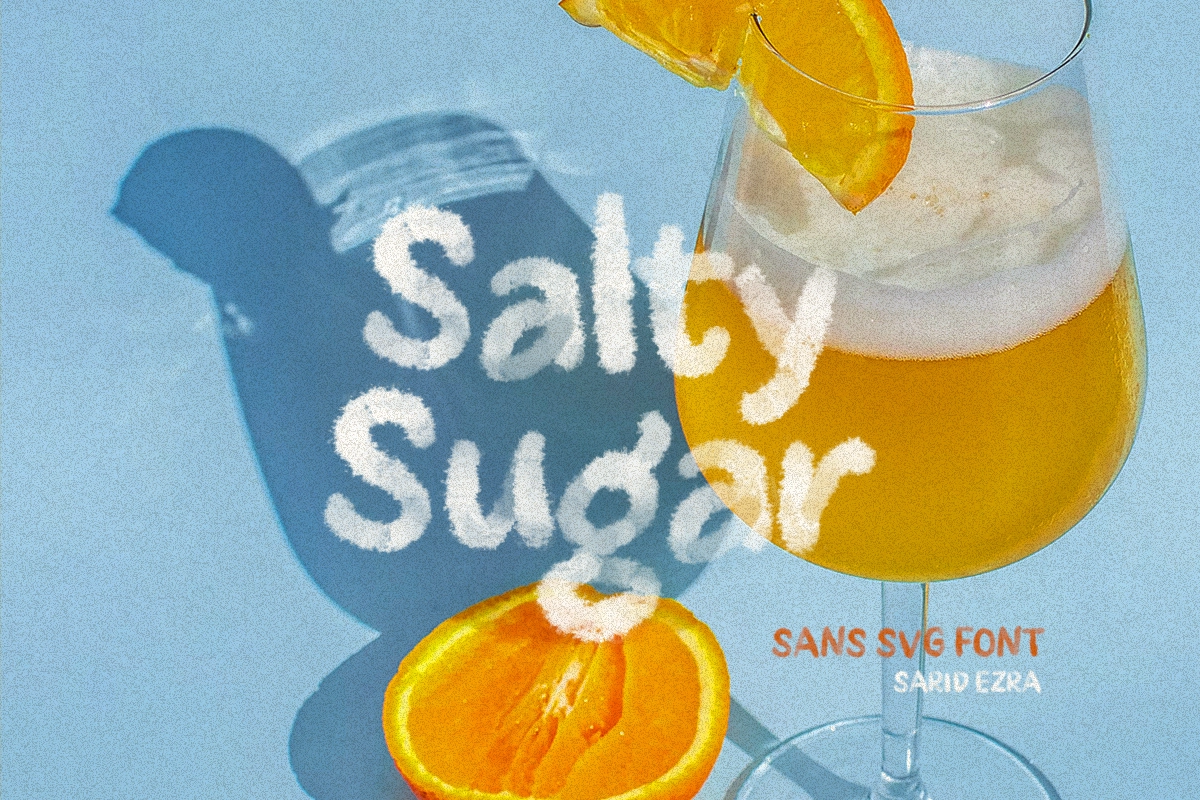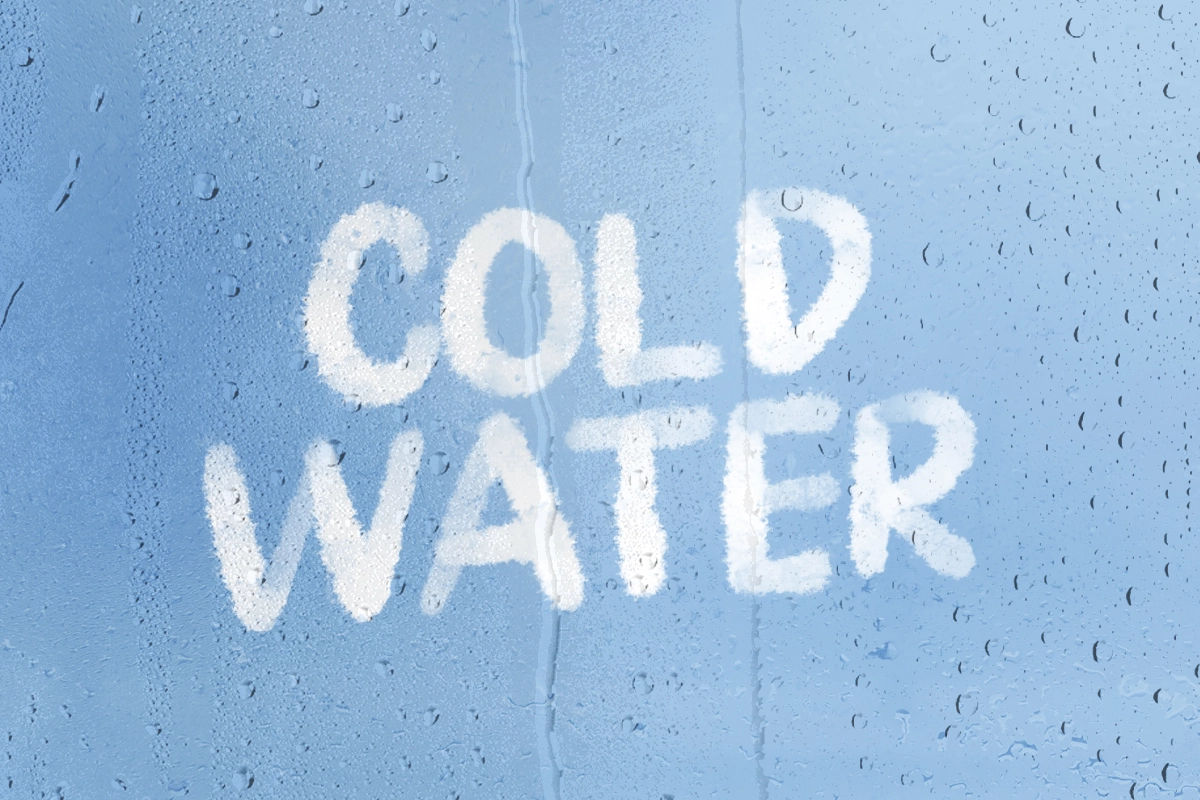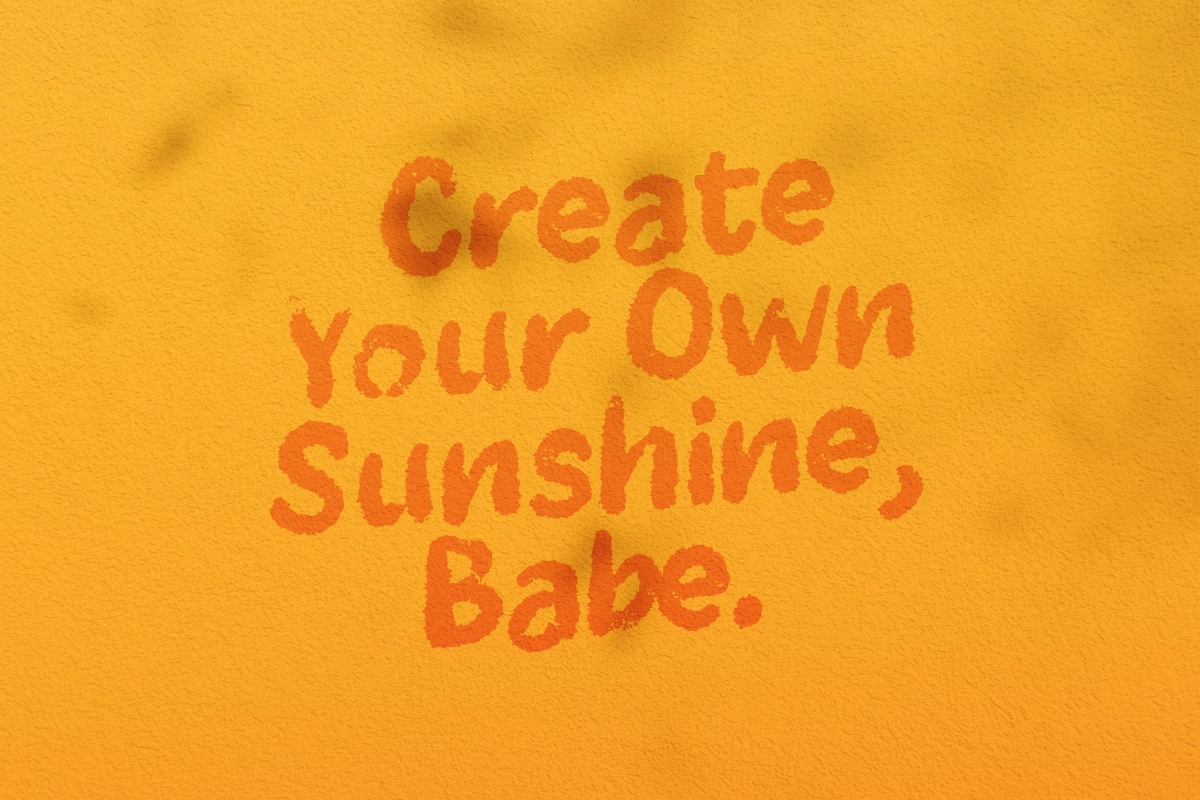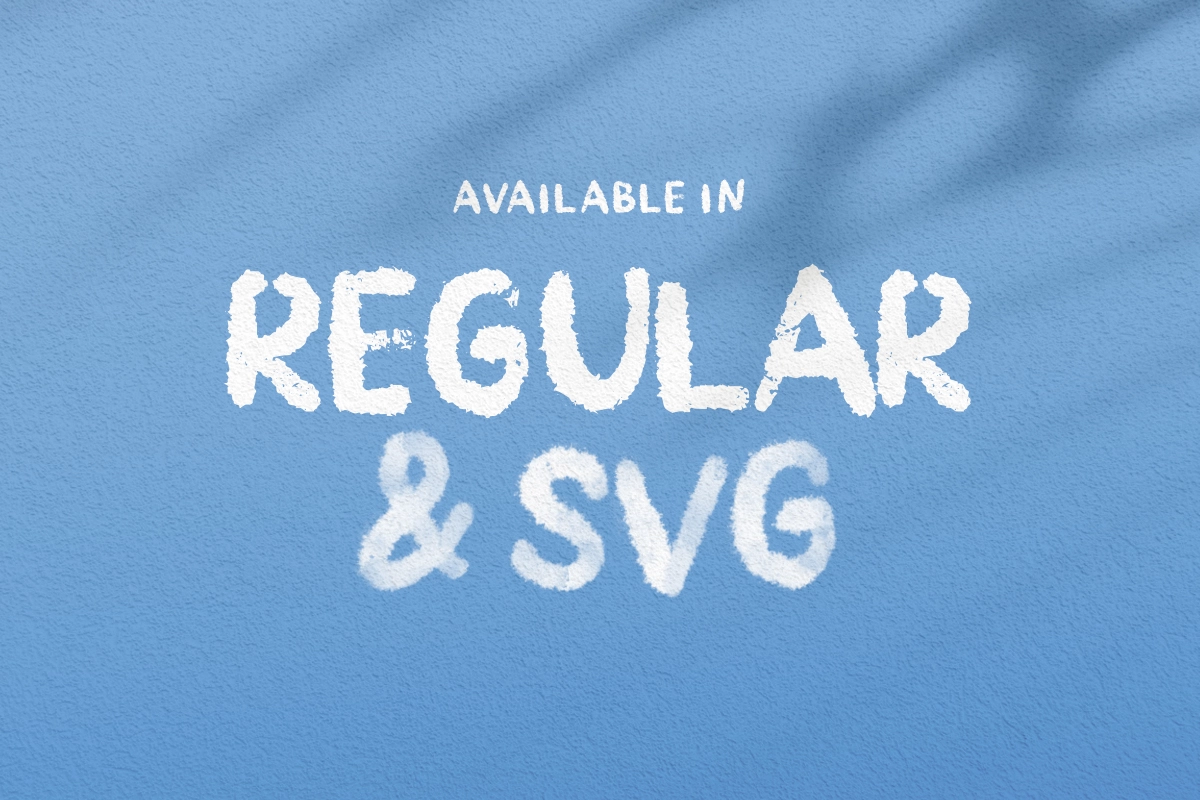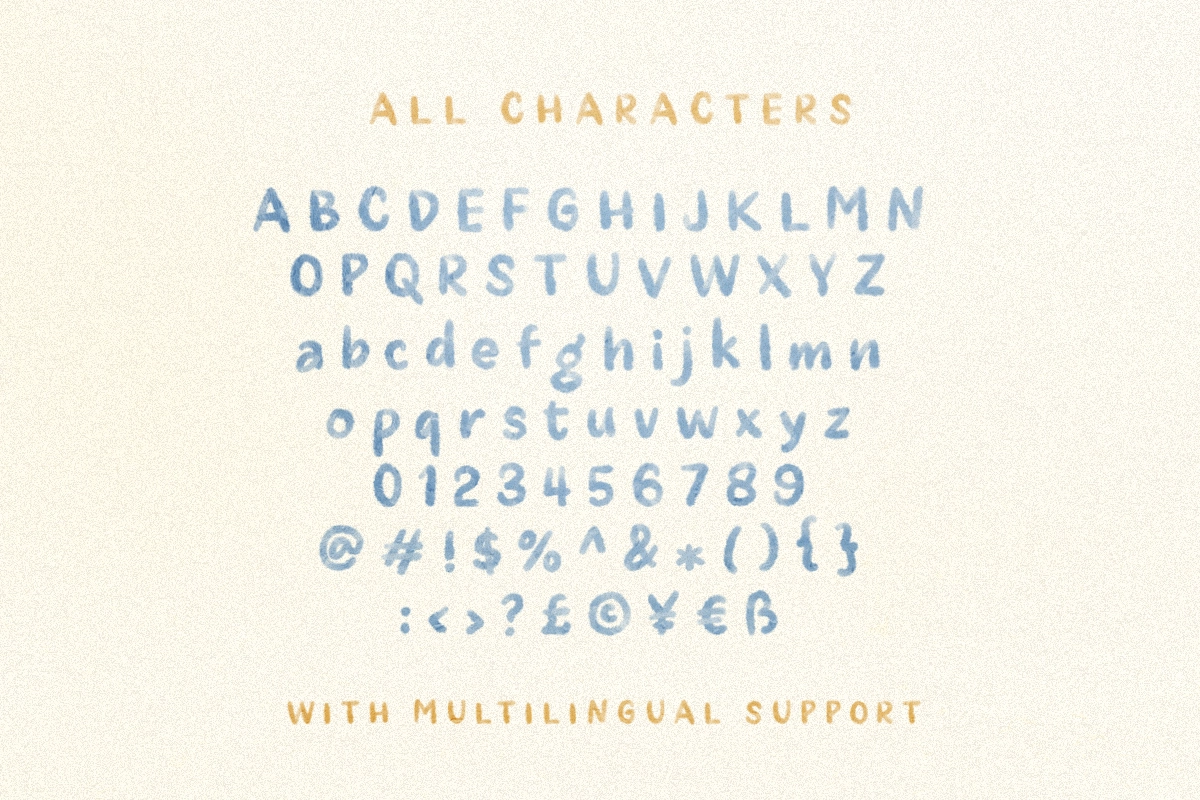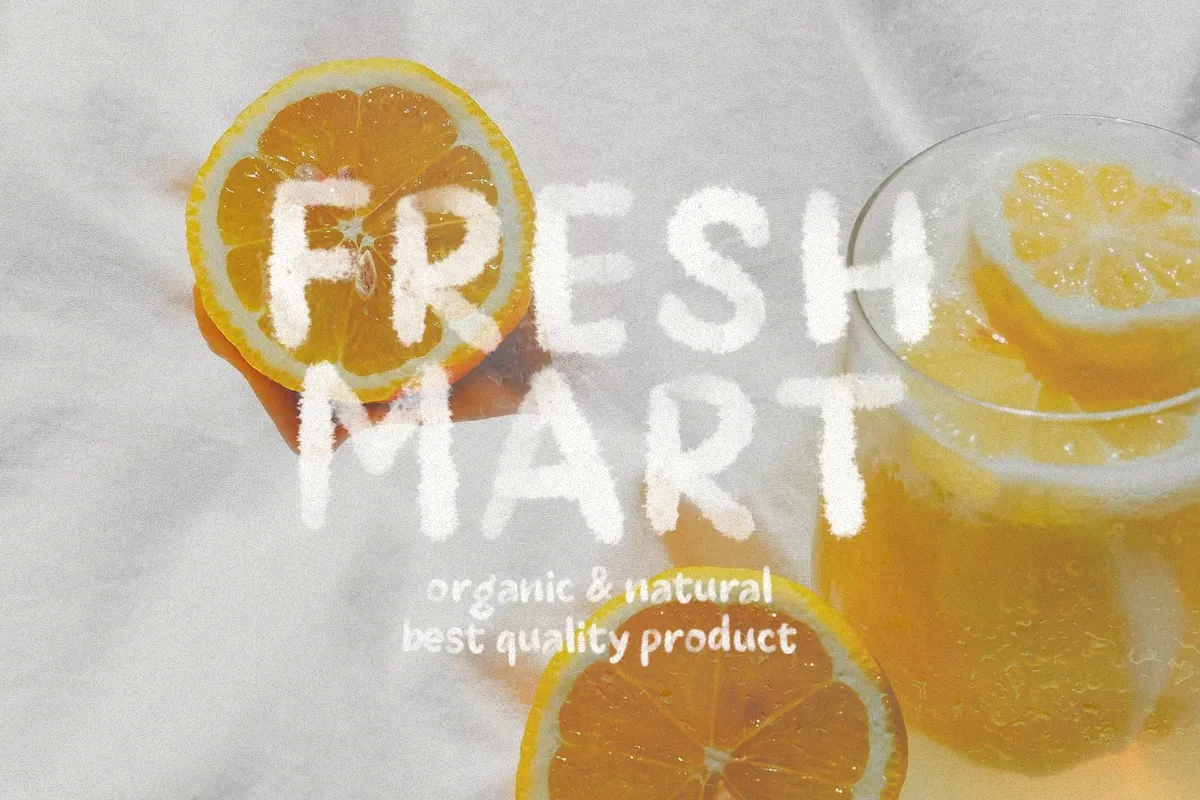
Salty Sugar - Sans SVG Font
Salty Sugar
Salty Sugar is a sans SVG Font with watercolor texture . Comes with SVG format (SVG OTF) and also with vector version (OTF/TTF). This natural watercolor font included number, symbol, and another punctuation and also Support multilingual. You can use this font for so many purposes, such as a quotes, branding, slogan, especially when you need texture and organic feels.